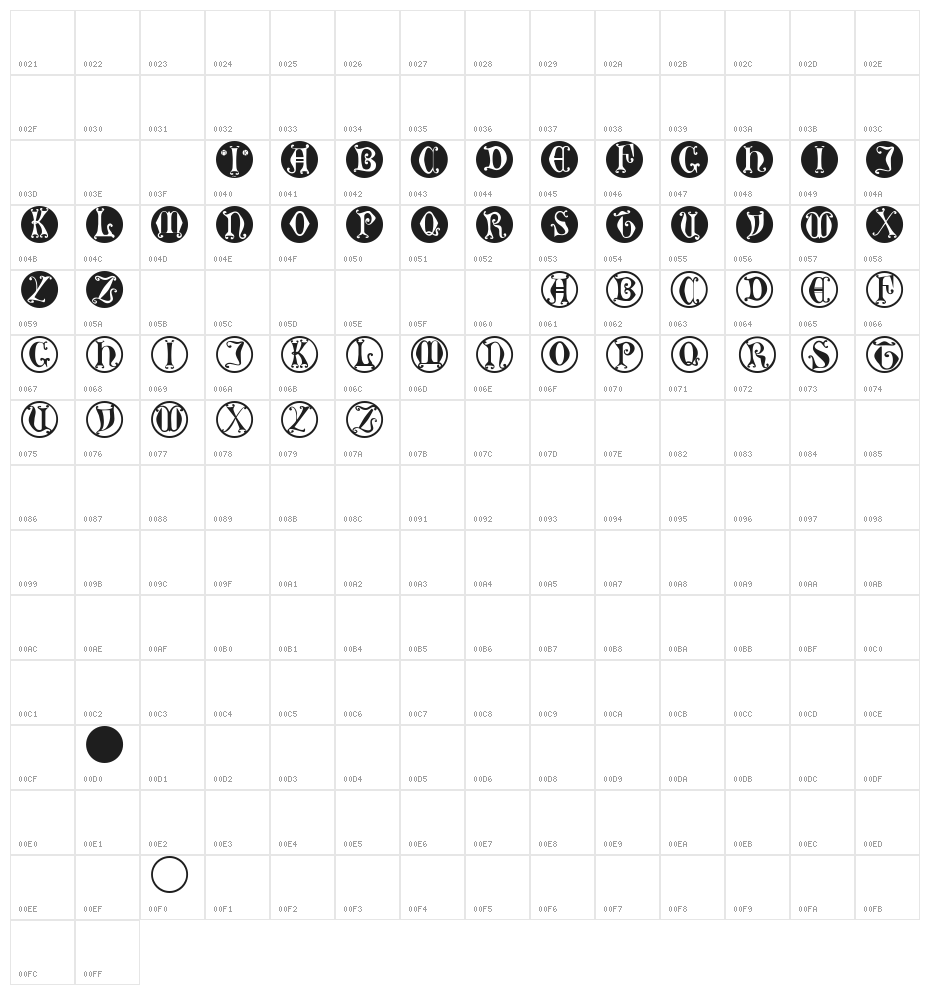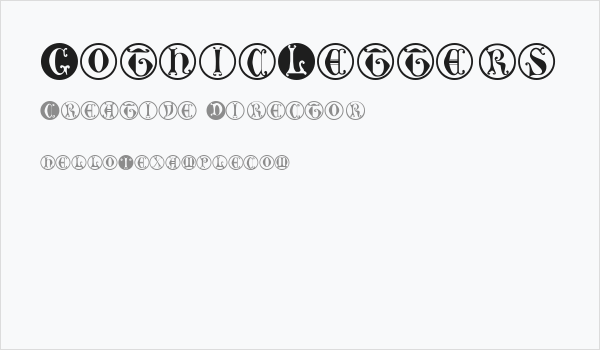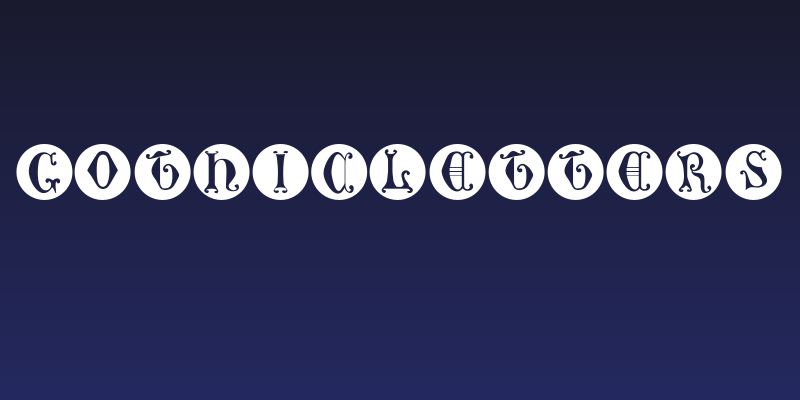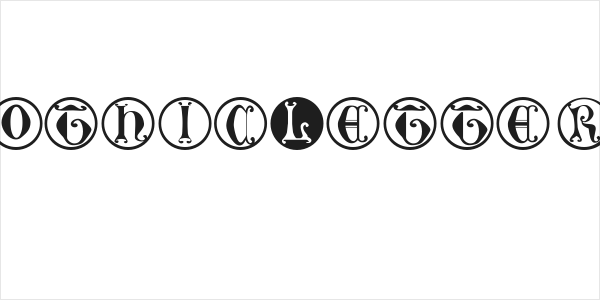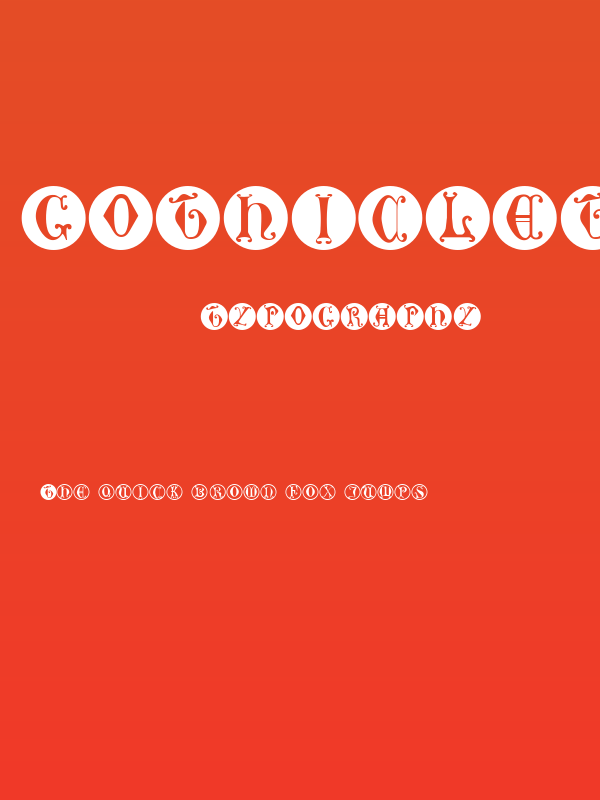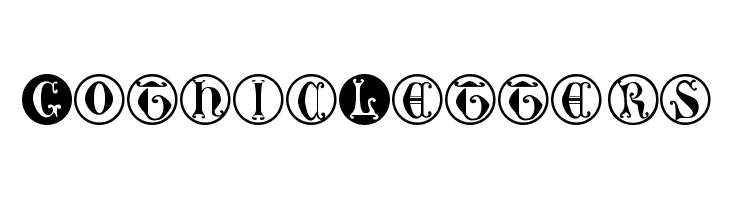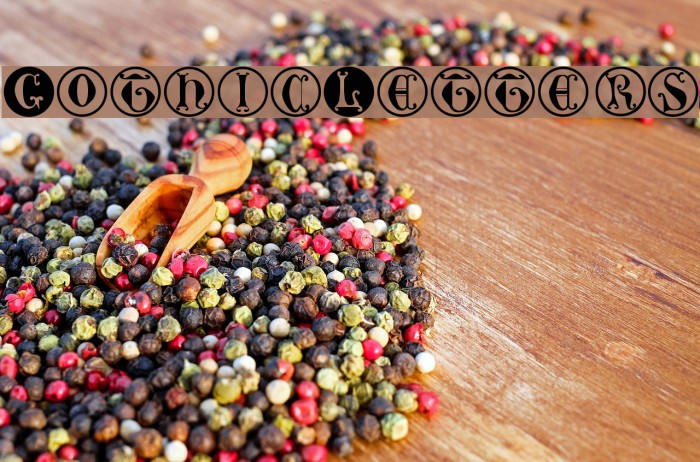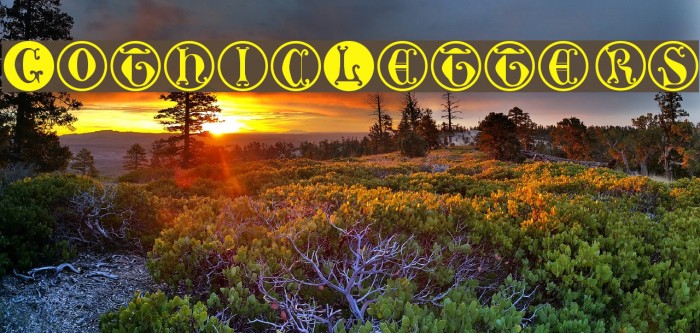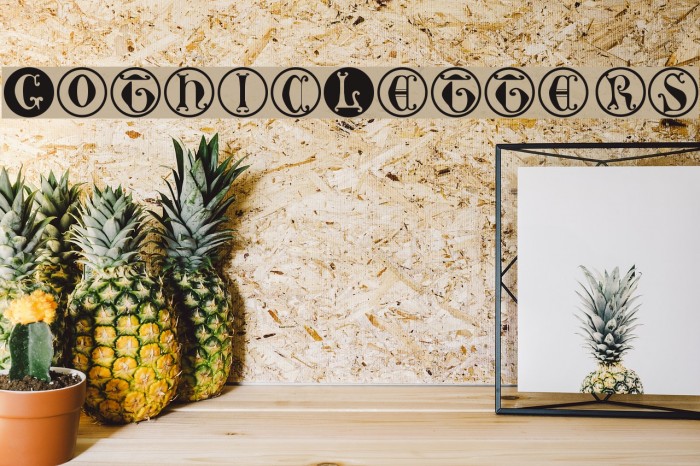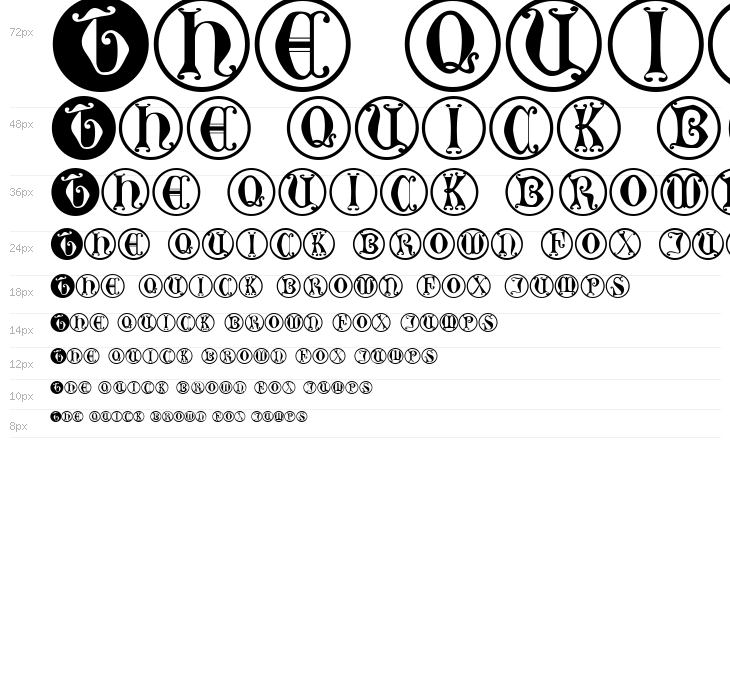
GothicLetters Font
GothicLetters Description
This font features a distinctive Gothic style with ornate, decorative elements. Each letter is encased in a circular border, adding a unique flair and a sense of completeness to the design. The characters exhibit high contrast with thick and thin strokes, typical of traditional Gothic typography. The intricate details and flourishes give it a medieval, historical feel, making it suitable for projects that require an elegant and dramatic touch. The uppercase letters are particularly elaborate, with extended serifs and embellishments that enhance their visual impact.
| Use Case | Logos, Headlines, Decorative elements |
| Proposed Projects | Ideal for vintage-themed designs, book covers, invitations, or branding that requires a historical or dramatic aesthetic. |